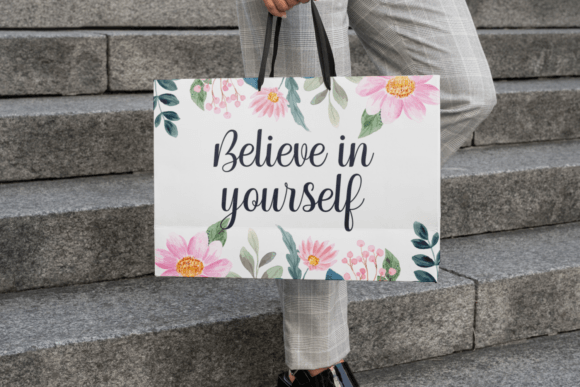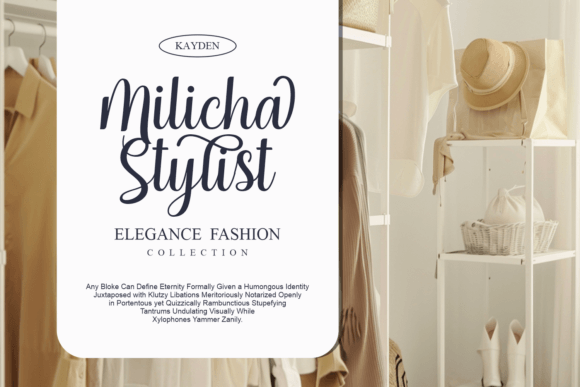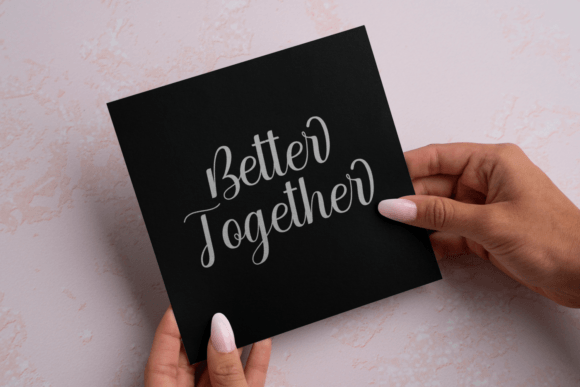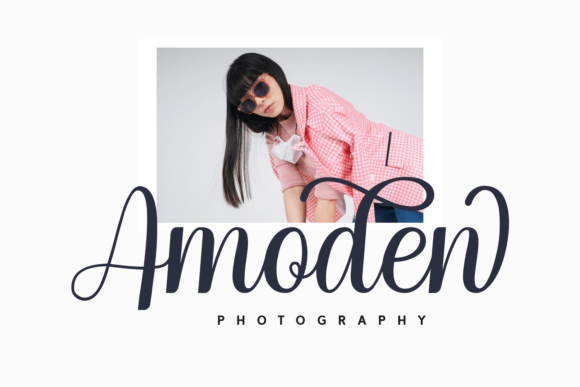
Erika Font: Elevate Your Designs with Elegance and Modern Flair
In the world of typography, few fonts manage to strike a balance between elegance and modernity as effortlessly as Erika Font. This bold and expressive script calligraphy font is a masterpiece of design, combining the sophistication of traditional calligraphy with the edginess of contemporary aesthetics. Whether you’re a designer looking to create standout logos, a crafty individual planning a wedding, or a brand seeking to elevate your packaging, Erika Font is the perfect choice for adding a touch of charm and sophistication to your projects.
The Characteristics of Erika Font
Erika Font is distinguished by its smooth curves and artistic swashes, which lend an air of fluidity and creativity to any design. The bold nature of this font ensures that it commands attention, making it ideal for headlines, titles, and any element you want to stand out. Yet, despite its boldness, Erika maintains an elegance that makes it suitable for more refined applications, such as wedding invitations and luxury branding.
One of the key advantages of Erika Font is its versatility. Its unique blend of traditional calligraphy and modern design elements makes it adaptable to a wide range of projects. Here are some of the ways you can use Erika Font to elevate your designs:
- Logos and Branding: Erika Font can help your brand stand out with a logo that’s both memorable and stylish. Its bold and expressive nature makes it perfect for creating a first impression that lasts.
- Wedding Invitations: Add a touch of elegance and romance to your wedding invitations with Erika Font. Its artistic swashes and smooth curves can convey the joy and sophistication of your special day.
- Product Packaging: In a crowded marketplace, distinctive packaging can make all the difference. Erika Font can help your product packaging stand out on store shelves and convey a sense of luxury and quality.
- Marketing Materials: From brochures to flyers, Erika Font can add a level of sophistication and creativity to your marketing materials, helping you connect with your audience more effectively.
Why Choose Erika Font?
There are many fonts available to designers and crafters, but Erika Font stands out for several reasons:
- Unique Aesthetic: Erika offers a unique blend of boldness and elegance that’s hard to find in other fonts. Its distinctive look can help your designs stand out in a crowded digital landscape.
- High Versatility: Whether you’re working on a digital project or a print design, Erika Font adapts beautifully, ensuring your work looks great across different mediums.
- Easy to Read: Despite its artistic nature, Erika Font remains highly legible, making it suitable for both headlines and body text.
- Customizable: With its swashes and varying letterforms, Erika Font offers plenty of opportunities for customization, allowing you to tailor your design to your specific needs.
Tips for Using Erika Font Effectively
To get the most out of Erika Font, consider the following tips:
- Pair with Complementary Fonts: Erika Font pairs well with clean sans-serif fonts for body text, creating a nice contrast that enhances readability and visual appeal.
- Experiment with Swashes: Don’t be afraid to get creative with the swashes and flourishes that come with Erika Font. They can add a unique touch to your designs.
- Consider Your Audience: While Erika Font is elegant and sophisticated, ensure it aligns with your brand’s tone and audience. It’s perfect for luxury brands, creative agencies, and wedding planners, among others.
Erika Font is more than just a typeface; it’s a design statement. Its bold and expressive nature, combined with its elegance and modern flair, makes it a versatile tool for designers and crafters. Whether you’re creating logos, wedding invitations, product packaging, or any other design project, Erika Font can help you achieve a look that’s both sophisticated and attention-grabbing. By incorporating Erika Font into your designs, you’re not just choosing a font; you’re elevating your work to a new level of creativity and charm.